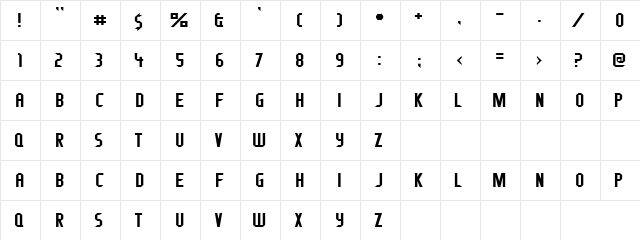
Bombardment Regular
Design Context for Bombardment Typeface
Bombardment offers clean, dependable letterforms without strong stylistic allegiance, making it a practical choice for designers who need flexibility.
Pro Tip: Pair Bombardment with a font of contrasting weight or personality to build a more expressive typographic hierarchy.